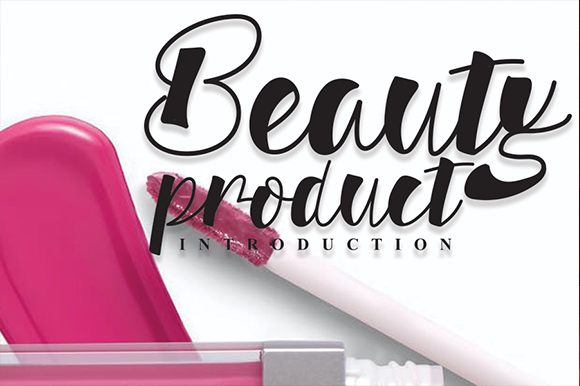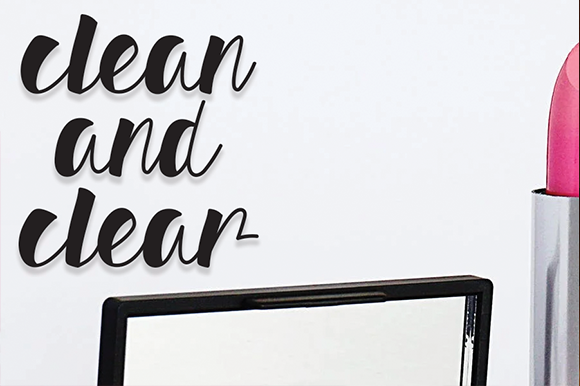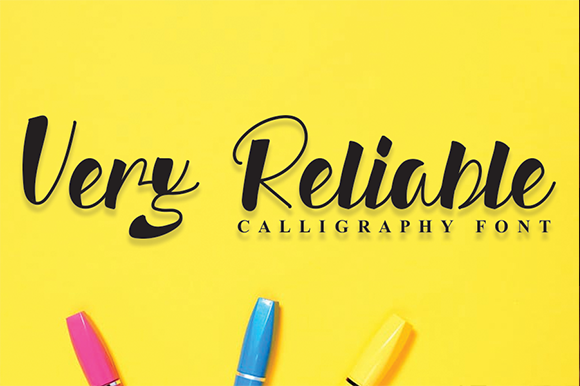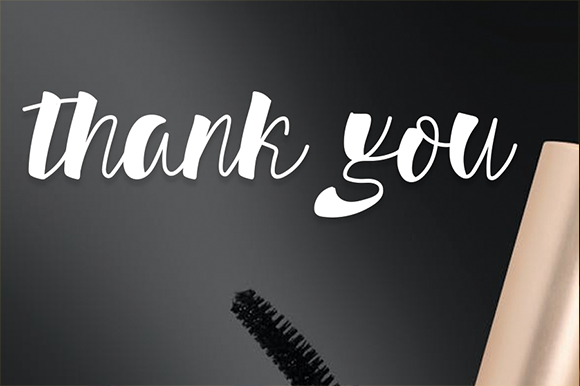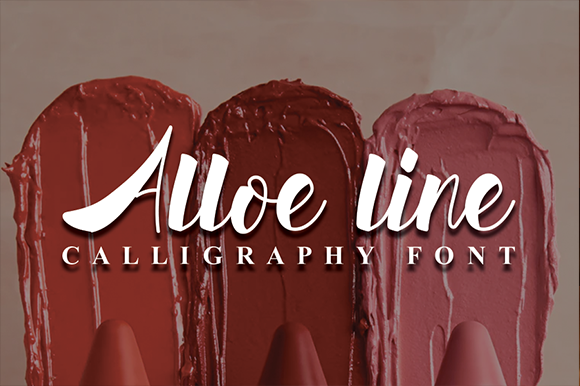
Discover the Elegance of Alloe Line Font: A Magical Handwritten Typeface
In the world of typography, few fonts manage to capture the essence of elegance and whimsy as effectively as the Alloe Line Font. This beautiful, handwritten typeface has been carefully crafted to bring a touch of magic to your designs, making it an ideal choice for crafters, designers, and anyone looking to add a bit of sophistication to their projects.
The Charm of Alloe Line Font
Alloe Line Font is more than just a typeface; it’s an experience. With its fluid strokes and graceful lines, this font exudes a sense of elegance that can elevate any design. Whether you’re working on a branding project, crafting invitations, or creating digital content, Alloe Line Font offers the perfect blend of whimsy and sophistication.
One of the standout features of Alloe Line Font is its PUA (Private Use Area) encoding. This means that accessing the font’s extensive range of glyphs and swashes is incredibly straightforward. Designers and crafters can easily incorporate these beautiful elements into their work, allowing for greater creativity and flexibility. With PUA encoding, you can:
- Easily access and use a wide range of glyphs and swashes
- Enhance your designs with unique and intricate details
- Save time and effort with a user-friendly encoding system
Alloe Line Font is a versatile typeface that can be used across a variety of projects. Designers will appreciate the font’s:
- Elegant and refined appearance, perfect for branding and advertising
- Flexibility, with a range of glyphs and swashes to enhance designs
- Compatibility with a range of design software and platforms
Crafters, meanwhile, will love the font’s:
- Whimsical and playful feel, ideal for crafting and DIY projects
- Ease of use, with PUA encoding making it simple to access glyphs and swashes
- Potential for customization, allowing crafters to add a personal touch to their work
Tips for Using Alloe Line Font
To get the most out of Alloe Line Font, consider the following tips:
- Experiment with different sizes and colors to add visual interest to your designs
- Combine Alloe Line Font with other typefaces to create a unique and eye-catching look
- Take advantage of the font’s glyphs and swashes to add intricate details and flourishes
Alloe Line Font is a truly special typeface that offers a unique blend of elegance and whimsy. With its PUA encoding and extensive range of glyphs and swashes, this font is perfect for designers and crafters looking to add a touch of magic to their projects. Whether you’re working on a professional design or a personal crafting project, Alloe Line Font is sure to inspire and delight.